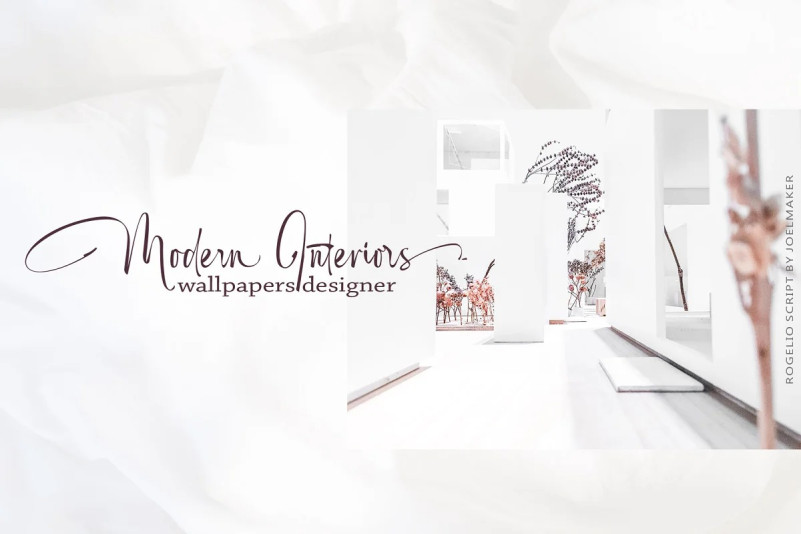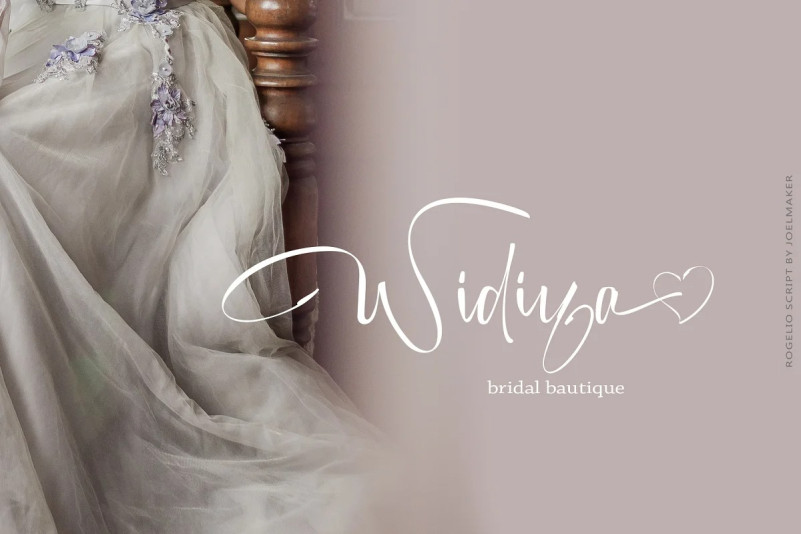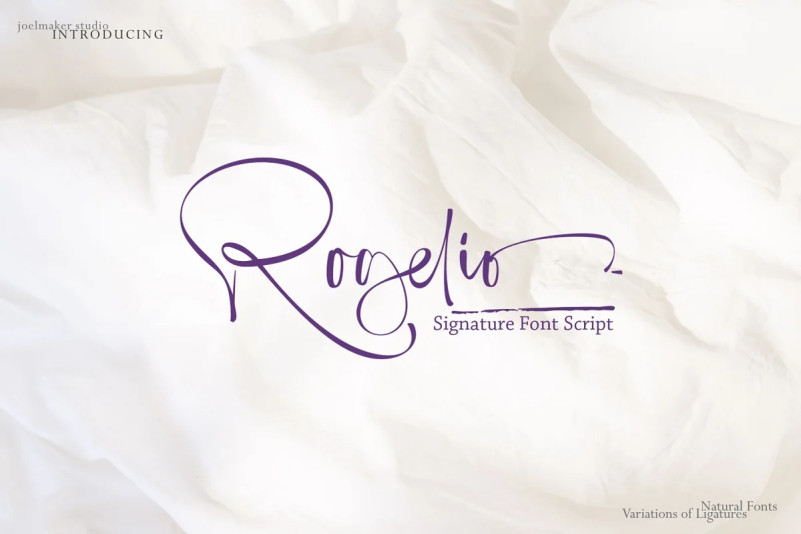
Rogelio Font
Rogelio Font is a stylish modern calligraphy font with casual chic flair. It is perfect for branding, wedding invites and cards, signature and maybe for red wine label.
Rogelio includes full set of gorgeous uppercase and lowercase letters, numerals, a large range of punctuation and variation ligatures. All lowercase letters include beginning and ending swashes, giving realistic hand-lettered style.